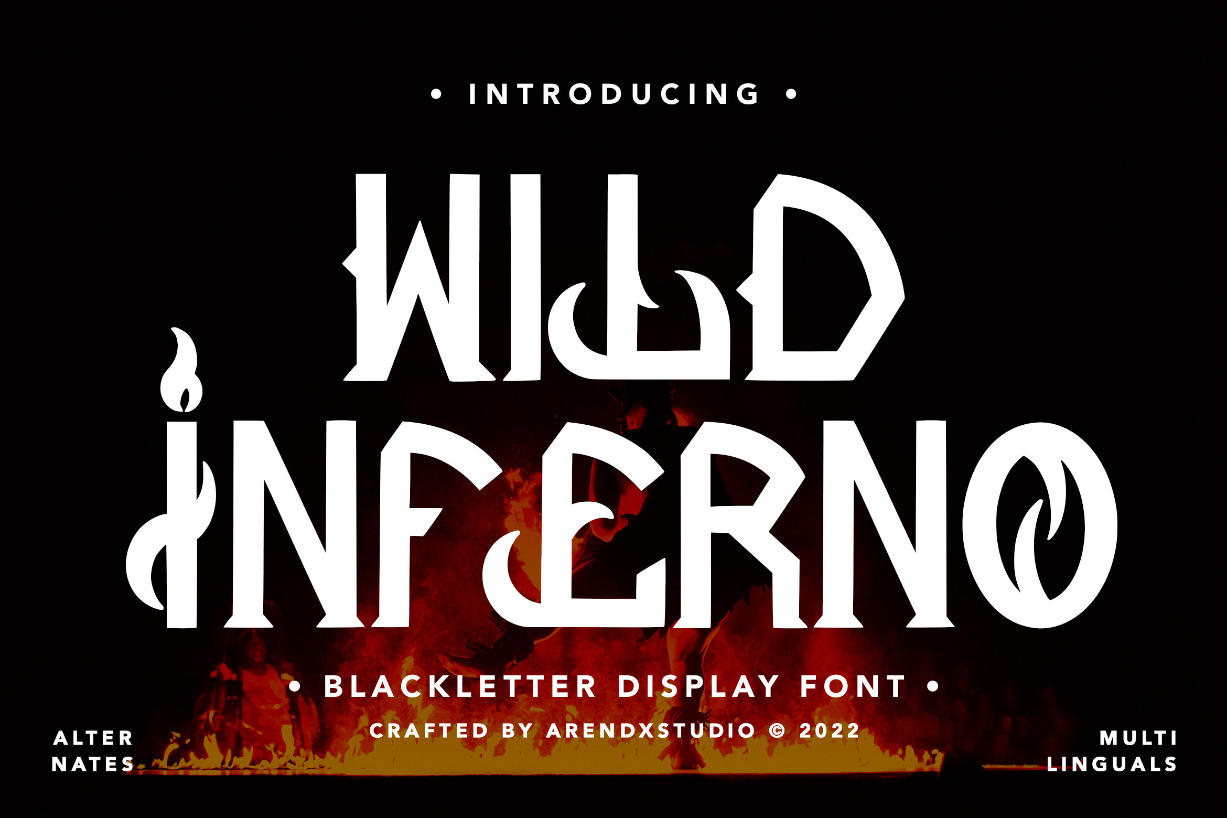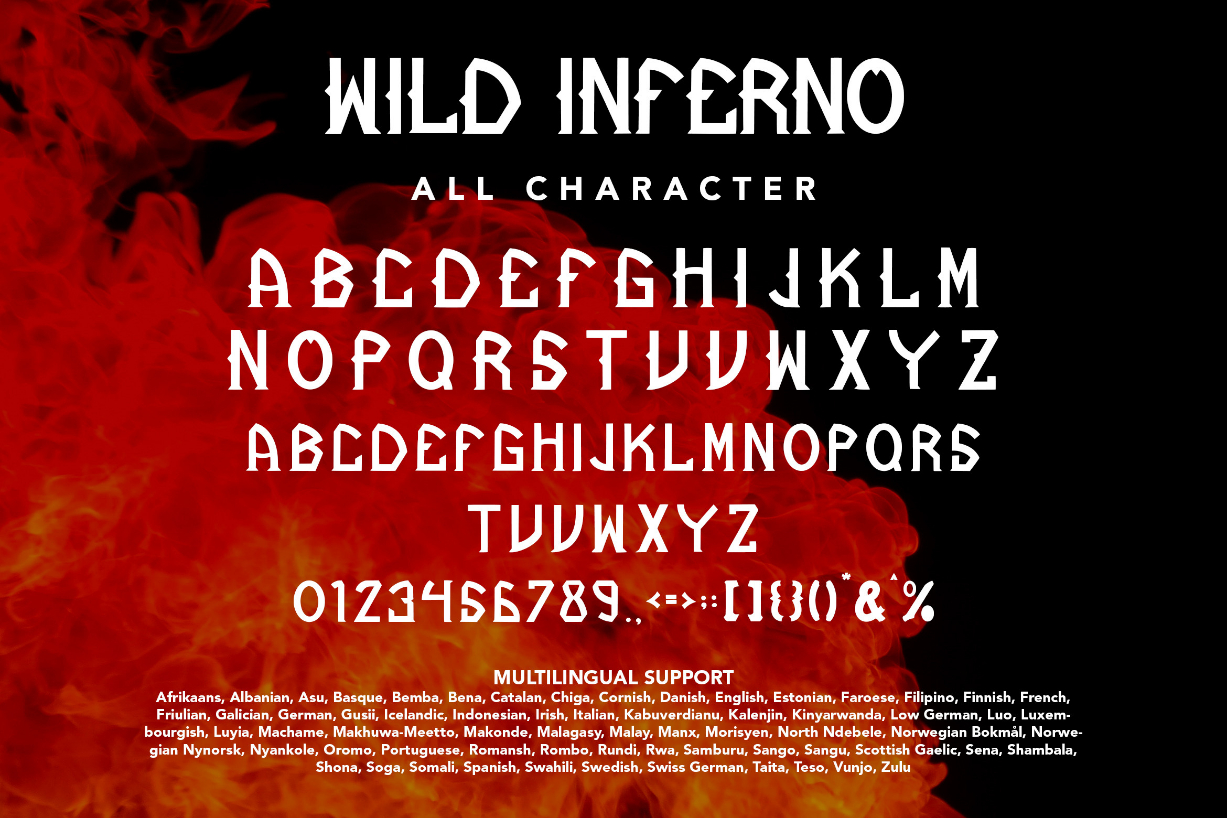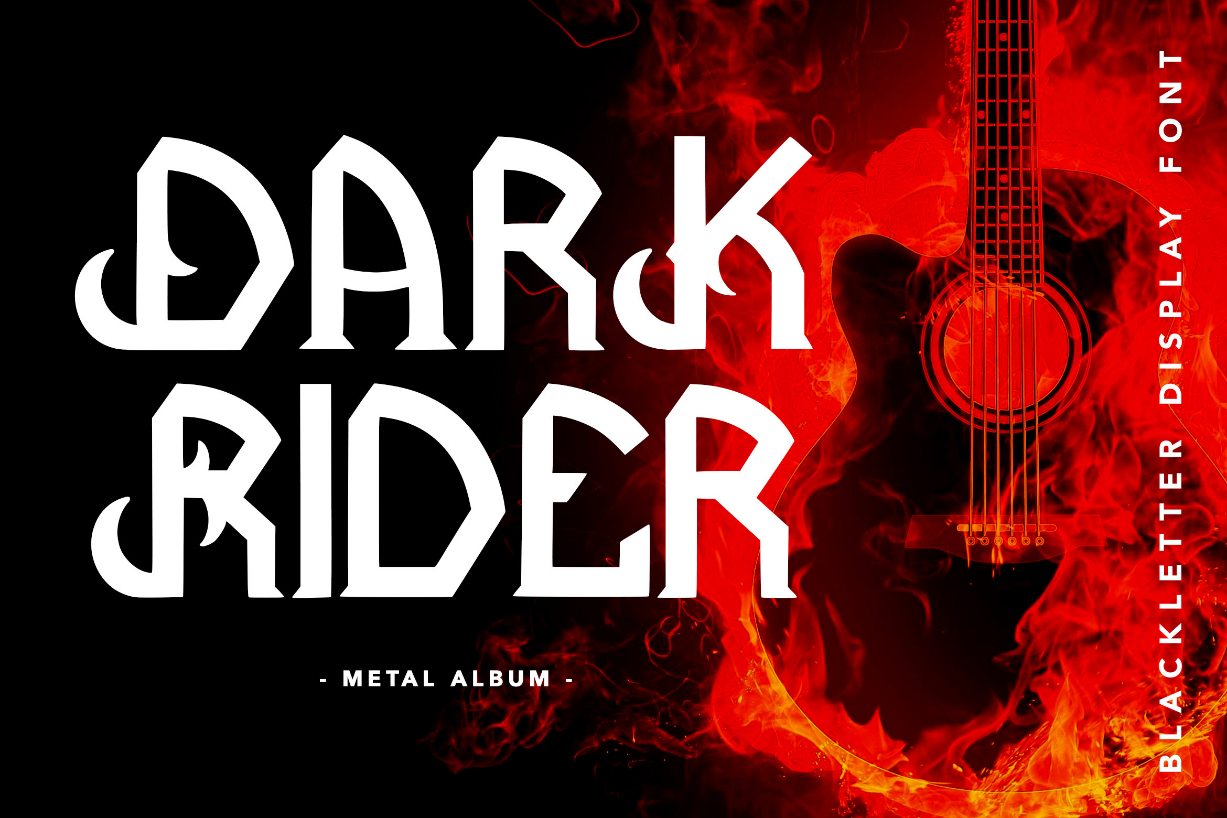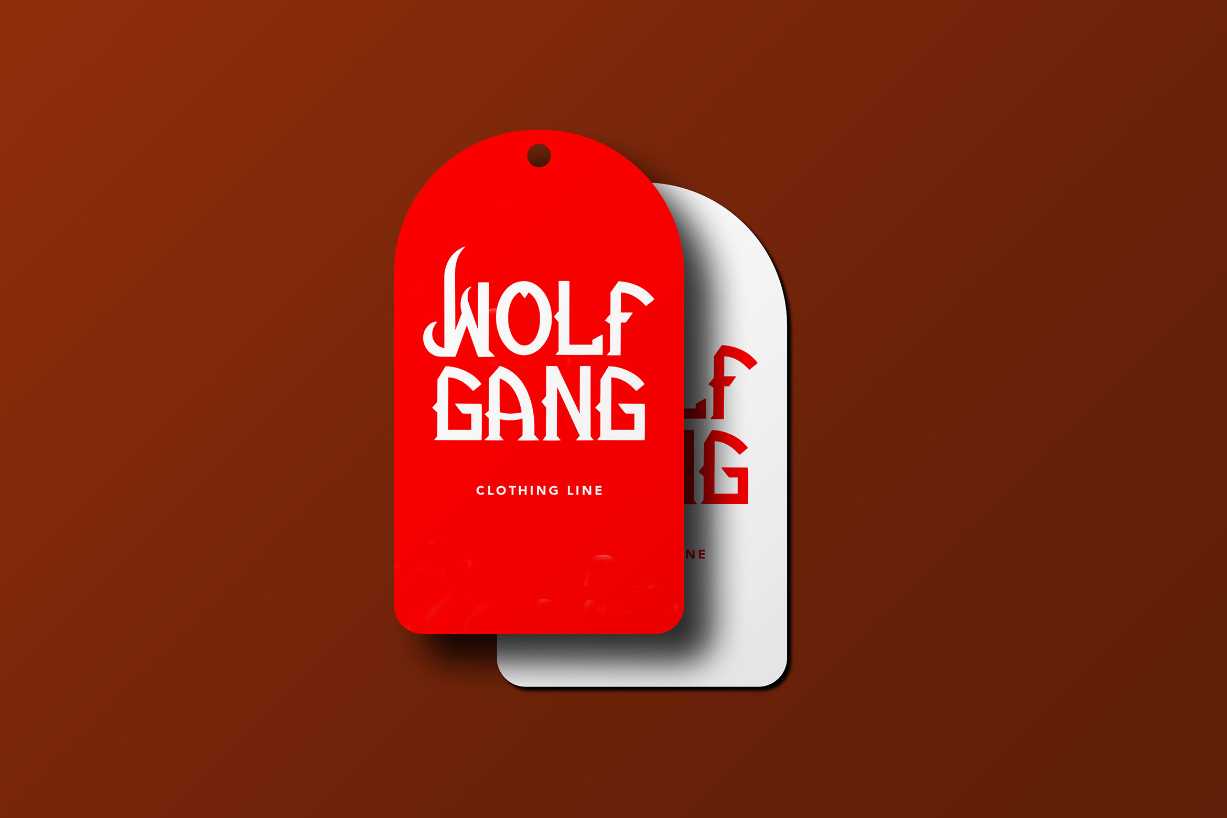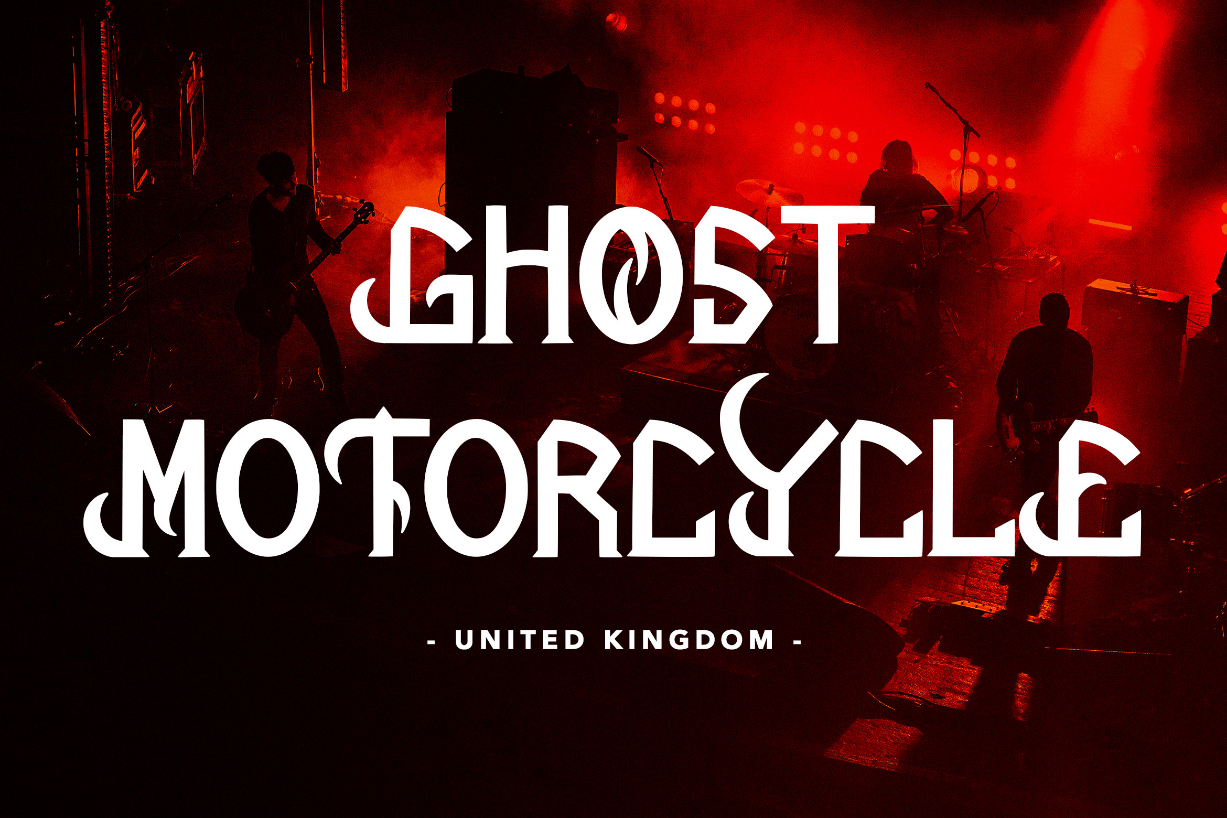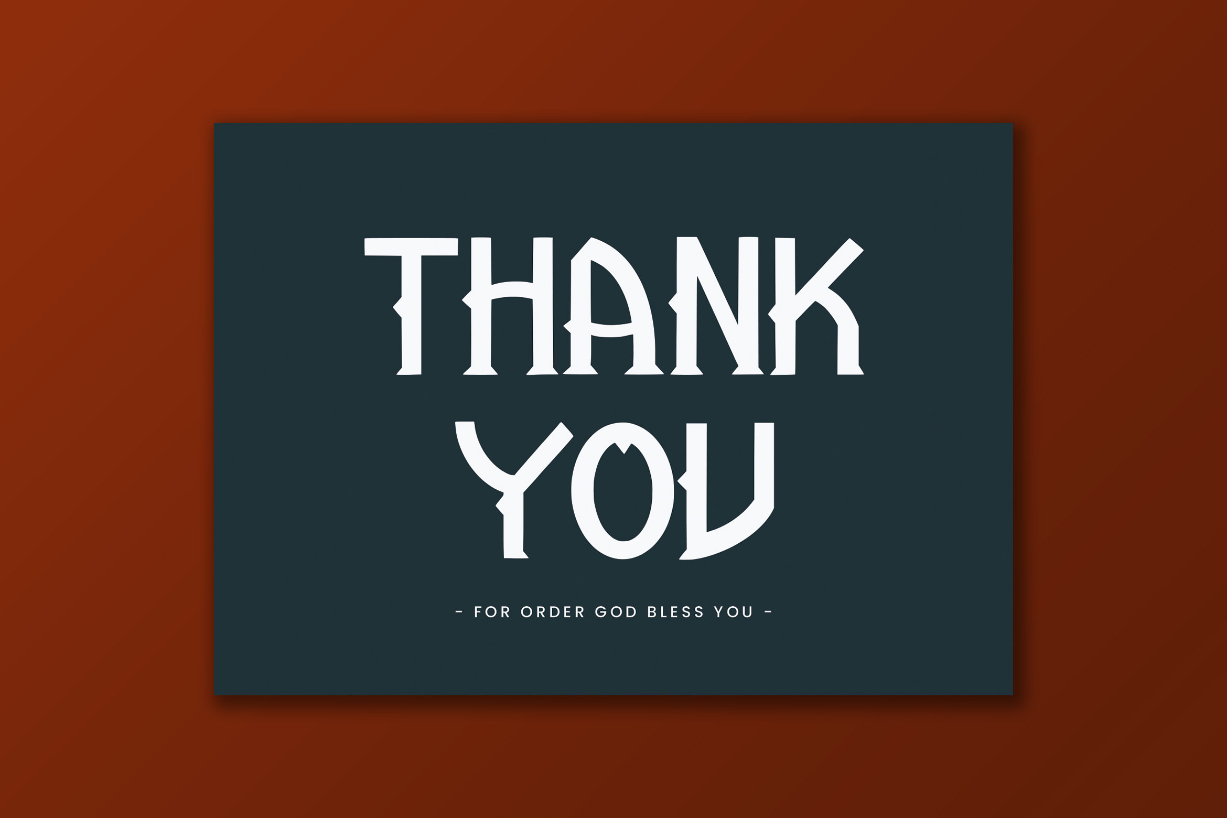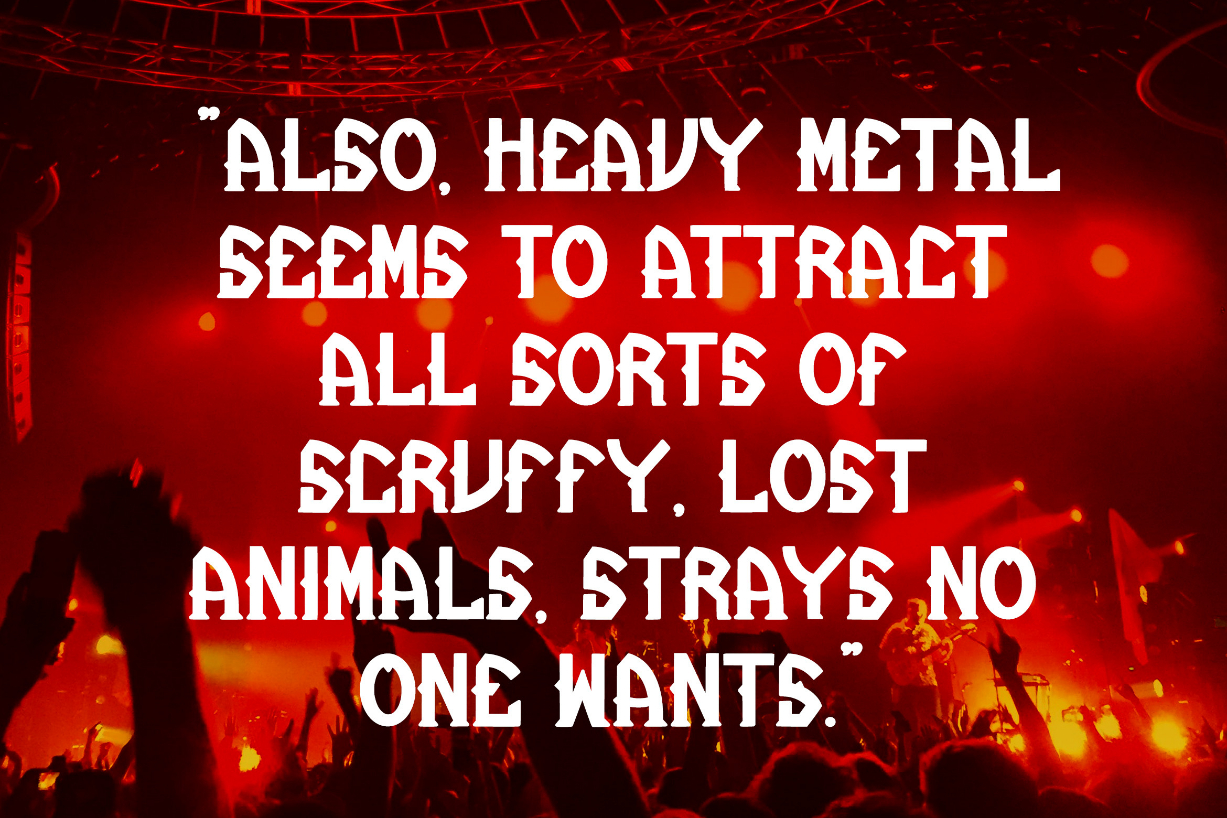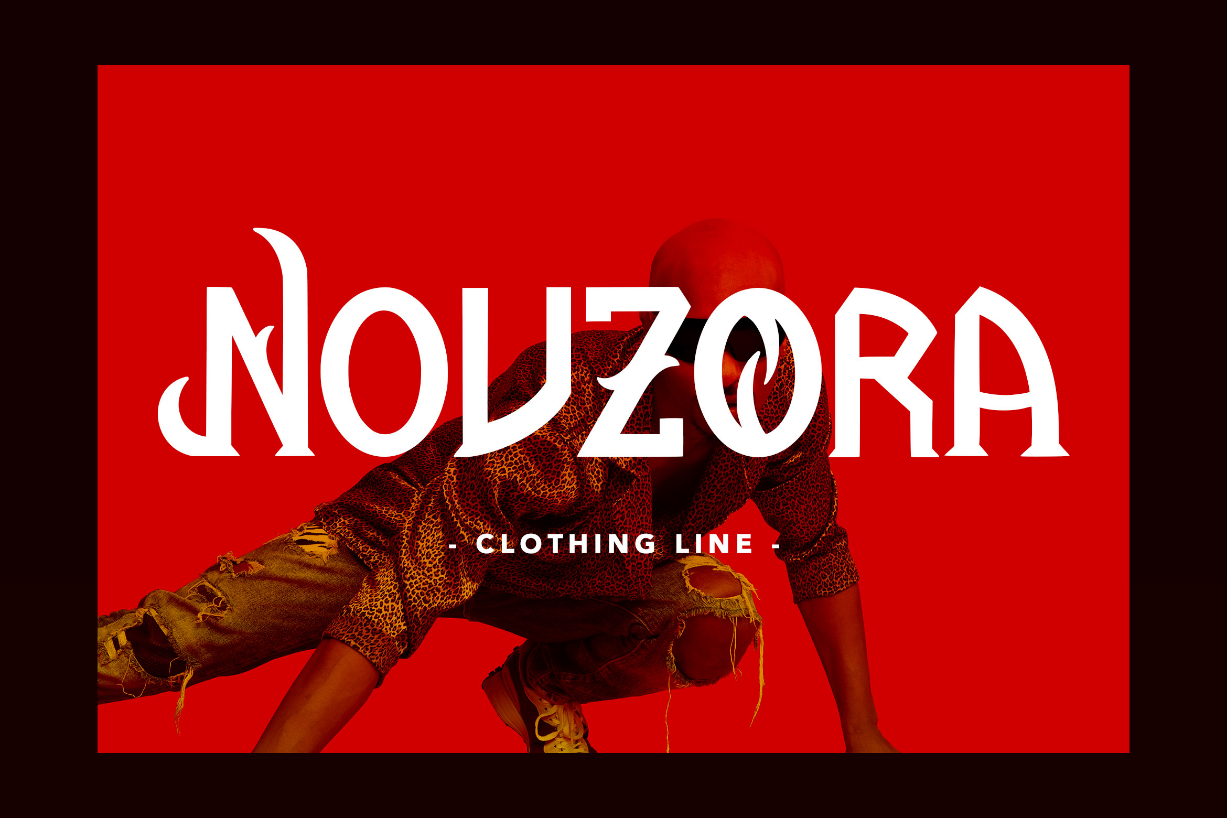
Wild Inferno Font
About Wild Inferno Font
Wild Inferno is a bold blackletter font. It is perfect for any branding project such as logos, t-shirt printing, creative products, and more.